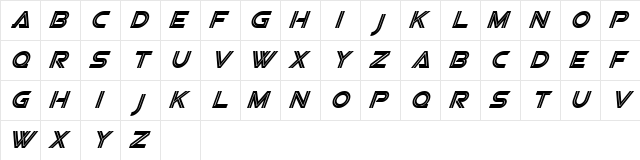
Viper Squadron Italic
Design Context for Viper Squadron Typeface
Viper Squadron is a composed and adaptable typeface that performs quietly and consistently across a wide range of design contexts. The dynamic lean of this cut emphasises speed and emphasis in any layout.
Pro Tip: Use Viper Squadron for emphasis, pull quotes, and subheadings where its slanted energy can add rhythm to the layout.